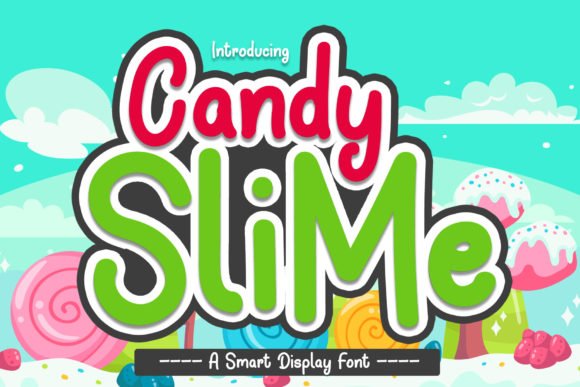
The Sweetest Addition to Your Design Toolkit
Have you ever been brainstorming a new design project, and suddenly, the perfect font pops into your mind? That’s exactly what happened to us when we stumbled upon the Candy Slime Font. Its unique blend of modernity and playfulness had us hooked from the very first glance.
Candy Slime Font is a display font designed to add a touch of futurism to your designs. Whether you’re working on a web design, business cards, or any other project that needs a dash of creativity, this font is sure to impress. Its versatility and modern aesthetic make it a valuable asset for designers looking to elevate their work.
Candy Slime Font Key Features
- Character Set: Supports a wide range of languages, including Latin, Cyrillic, and Greek alphabets
- Unique Characteristics: Distinctive, hand-drawn style with a mix of bold and playful lines, perfect for adding a touch of whimsy to designs
- Font Style: Offers a range of font styles, including regular, bold, italic, and bold italic, to provide flexibility in design applications
- Color and Texture Options: Can be used with a variety of colors and textures to create unique and eye-catching designs
Candy Slime Font Review
Candy Slime Font is an adorable, cursive font designed to bring a playful touch to any digital project. Here’s what works well for me:
- ✨ Whimsical feel: The font’s unique design captures the essence of colorful candy, adding a fun and youthful vibe to any content.
- ✨ Versatility: The font is suitable for various applications, from social media posts and blog titles to wedding invitations and branding materials.
- ✨ Consistency: The font’s style remains consistent throughout, ensuring a cohesive look across different sizes and resolutions.
However, there are some limitations I’ve noticed:
- ⚠️ Limited legibility: At smaller font sizes, the cursive design can become difficult to read, especially for those with visual impairments.
- ⚠️ Limited character set: The font’s character set is not extensive, which may limit its use in certain contexts, such as professional or technical writing.
Overall, Candy Slime Font is a delightful choice for projects that require a lighthearted, playful tone. While it may not be suitable for every situation, it’s a great option for those looking to add a touch of whimsy to their digital creations.
The Candy Slime Font is ideal for creating playful, child-friendly designs, such as:
– Party invitations and decorations.
– Children’s book covers and illustrations.
– Social media graphics and promotions.
For best results, use the Candy Slime Font in conjunction with bright, bold colors and playful graphics to create a fun and engaging visual identity.